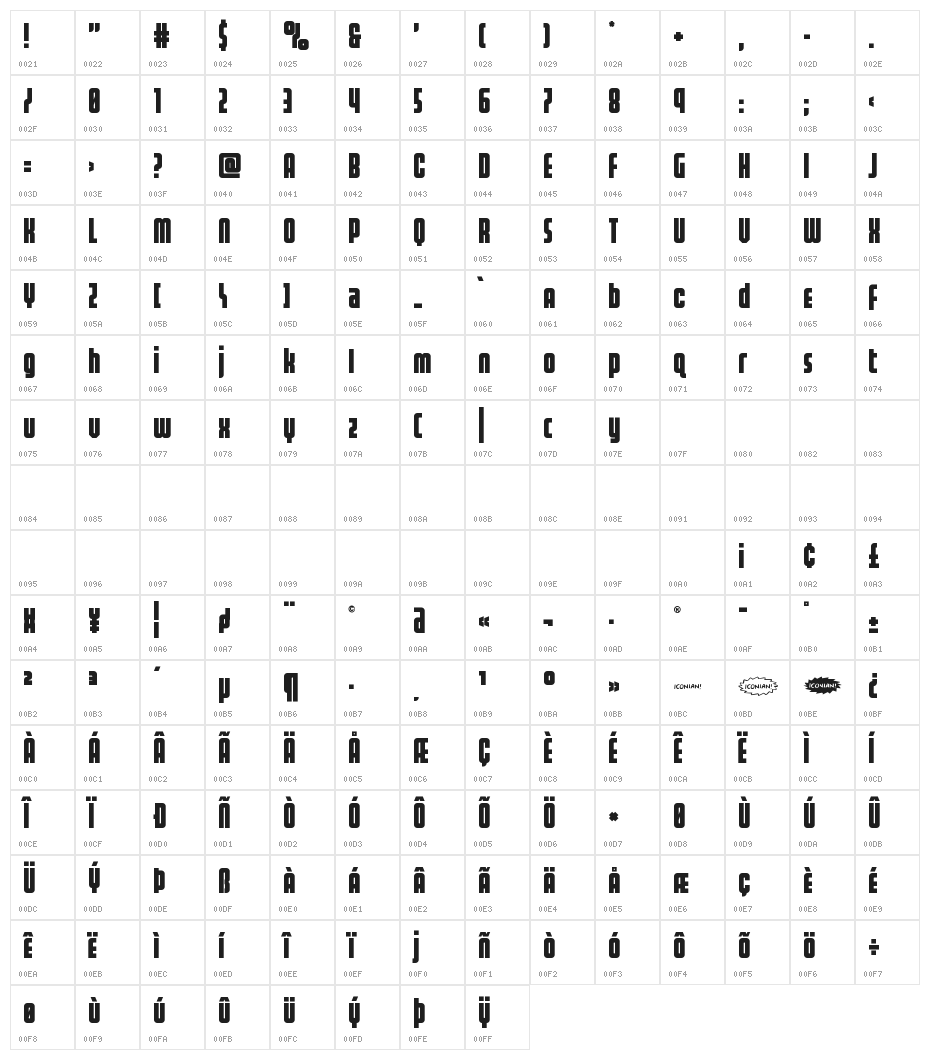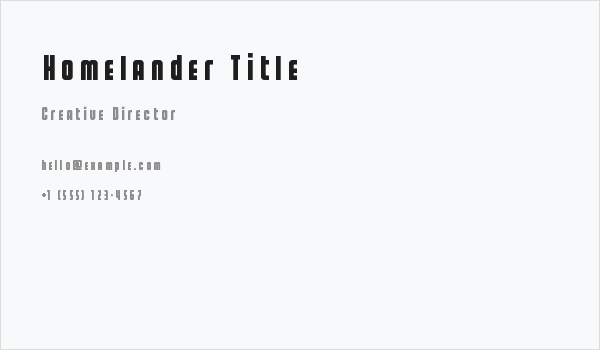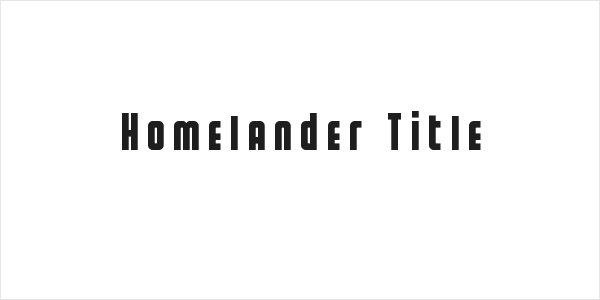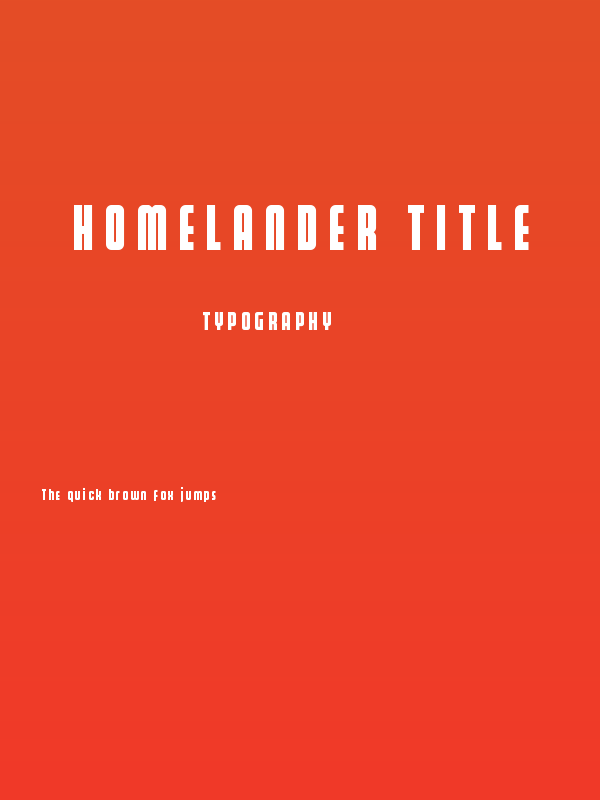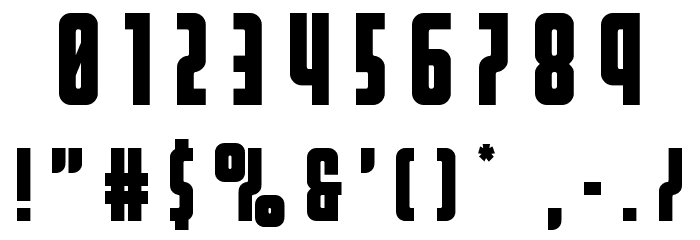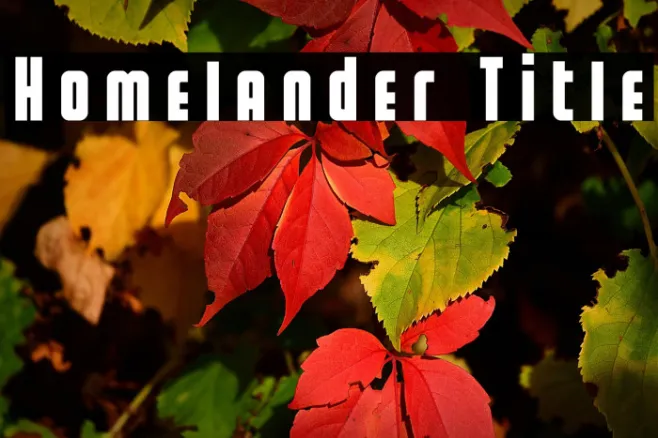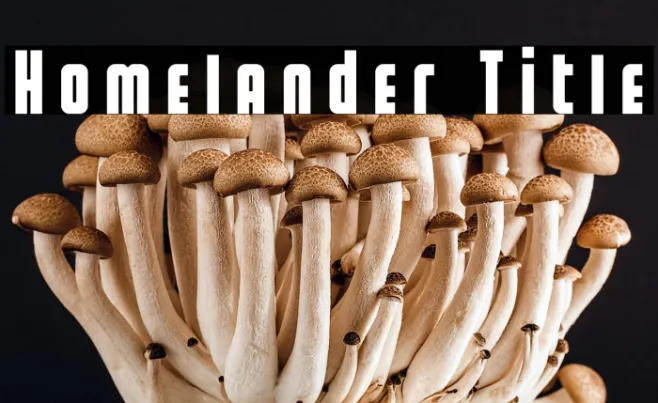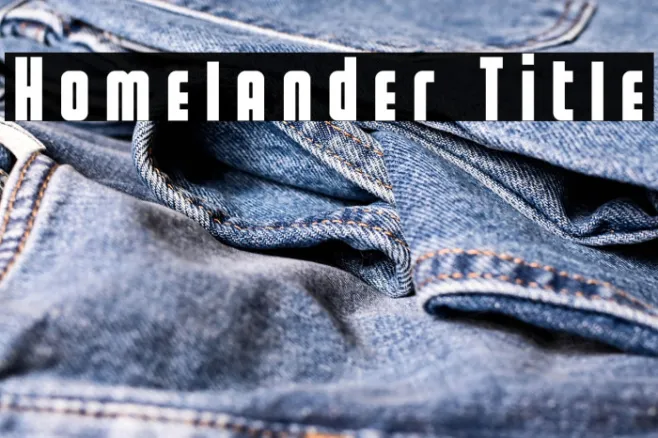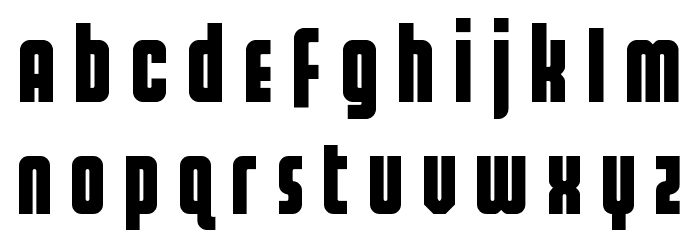
Homelander Title Font
Homelander Title Description
This font features a bold, geometric style with strong, straight lines and sharp angles. The characters are uniformly thick, giving it a robust and impactful appearance. The uppercase letters are tall and imposing, while the lowercase letters maintain a consistent height, contributing to a cohesive look. The numerals and special characters follow the same bold design, ensuring uniformity across all elements. The font's overall aesthetic is modern and assertive, making it suitable for attention-grabbing headlines and titles. Its clean and structured form lends itself well to projects that require a strong visual presence.
HOMELANDER-TITLE UPPERCASE
HOMELANDER-TITLE LOWERCASE
HOMELANDER-TITLE OTHER CHARS
| Proposed Projects | Ideal for headlines, posters, branding, and any design requiring a strong visual impact. |